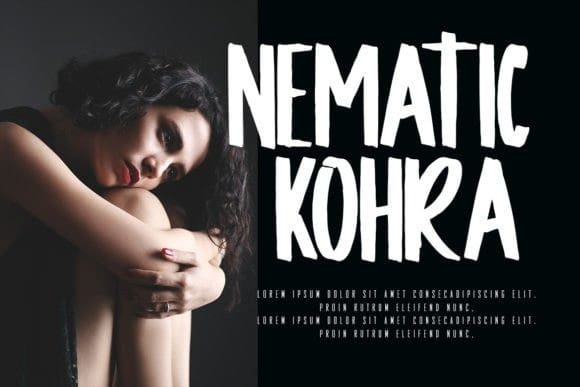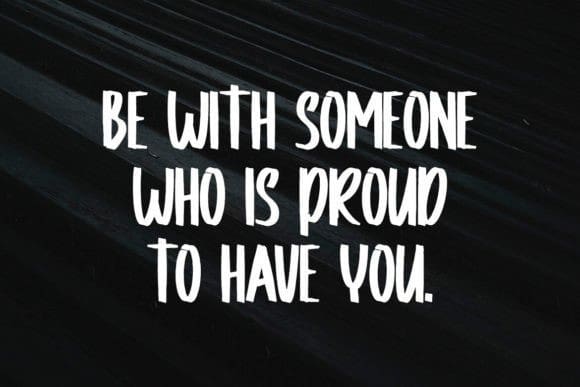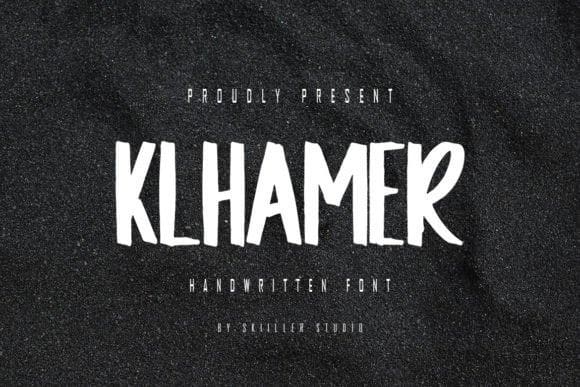
Klhamer Display Font
Klhamer Display Font is a natural display handwritten font with an irregular base line. Suitable for use in title design. Such as clothing, covers, book titles, films, quotes, branding, logos, greeting cards, t-shirts, packaging designs, posters, and others.